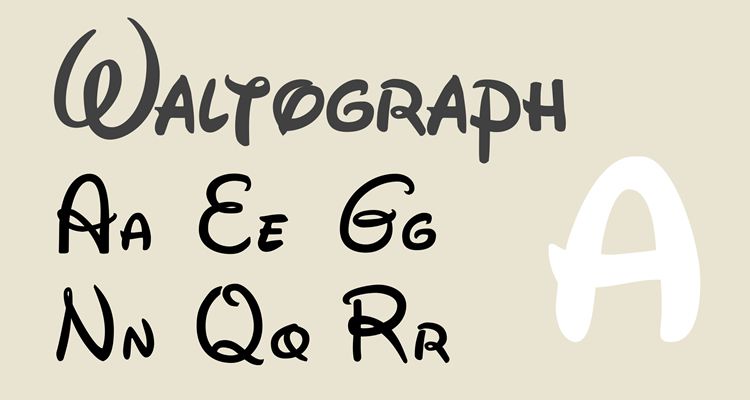
Disney Letter Font Free Download. Waltograph 42 is a regular font with uppercase and lowercase letters. Printable character letters and tickets.
This font is very similar to the font used in the logo for the toys, where each letter is a different bright color. What font is the tsum tsum font? Waltograph 42 is a regular font with uppercase and lowercase letters.
Free download of new waltograph font family with 2 styles. Click now to create a custom image with your own words that you can download. An epitome of elegance and sophistication, this font is perfect for capital as well as small letters.
Download the tsum tsum font. Waltograph ui is intended for increased legibility at small sizes and on computer screens. Free disney font svg files for cricut.
A disney inception, the cinderella font is intricately decorative, with old english cursive letters and a flowery background and creepers adorning each letter. Waltograph 42 is a regular font with uppercase and lowercase letters. Is the tsum tsum font free to use?
This font is very similar to the font used in the logo for the toys, where each letter is a different bright color. Download the transparent clipart and use it for free creative. Waltograph 42, a regular font with uppercase and lowercase letters plus a few ligatures and alternates, and waltograph ui, a unicase font intended for.